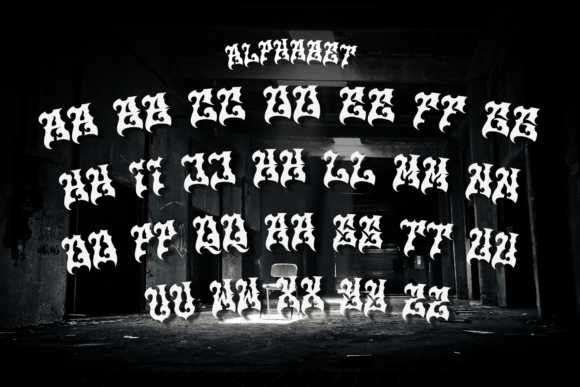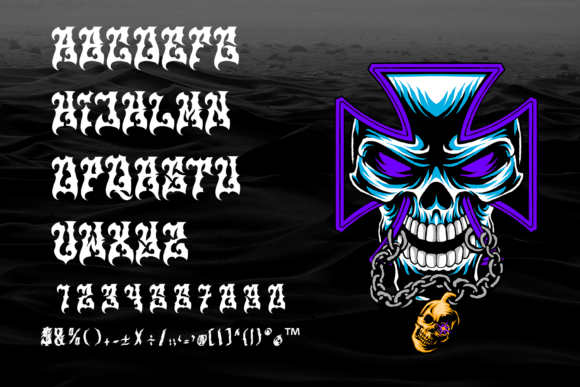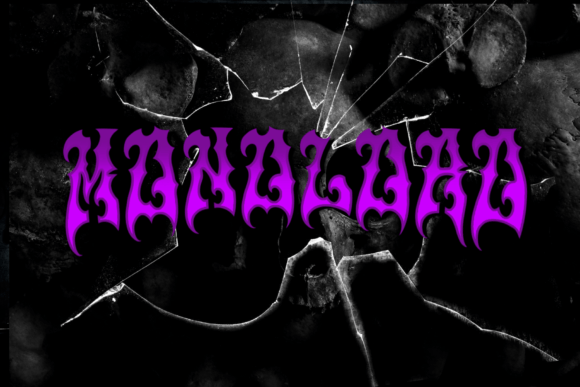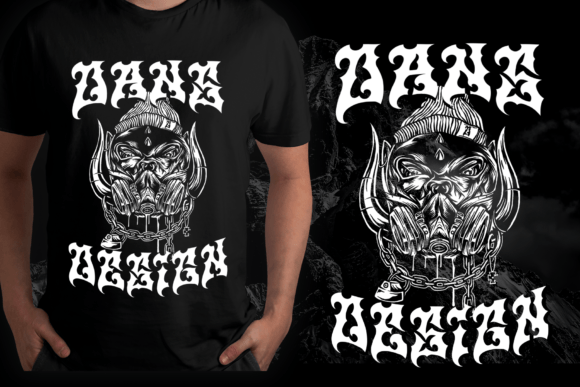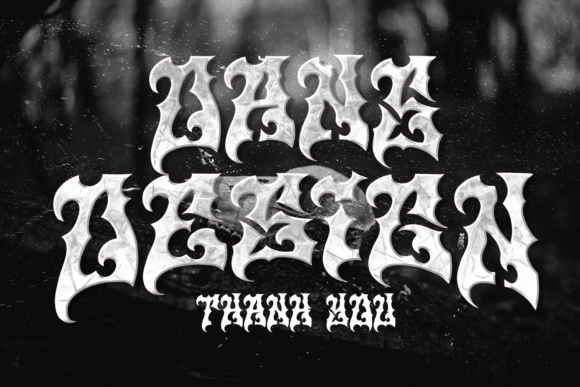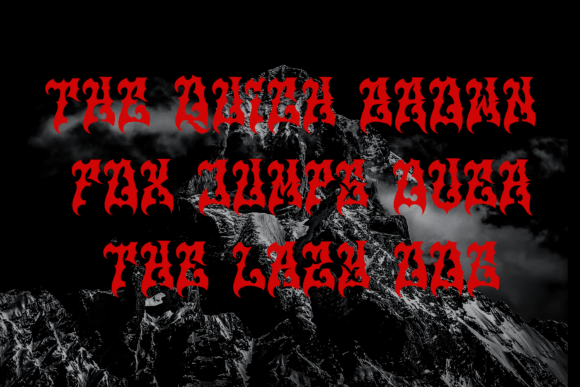
Introduction to Monolord Font
Monolord – Doom Gothic Metal Blackletter Font Use this strong and impressive typeface to add cool vibes to t-shirts, album covers, magazines, or anything that needs to stand out.
Key Features of Monolord Font
Why Choose Monolord Font?
Monolord Font offers exceptional quality and versatility, making it a valuable addition to your design toolkit. Whether you’re creating for personal projects or commercial use, Monolord Font delivers professional results.